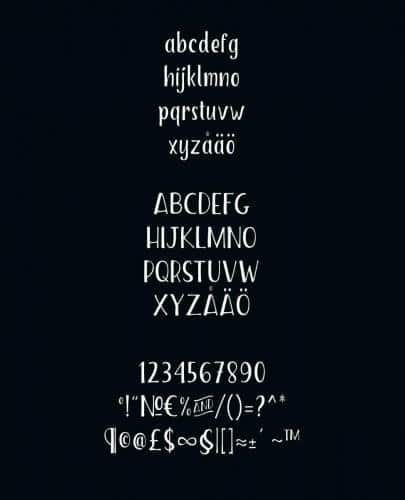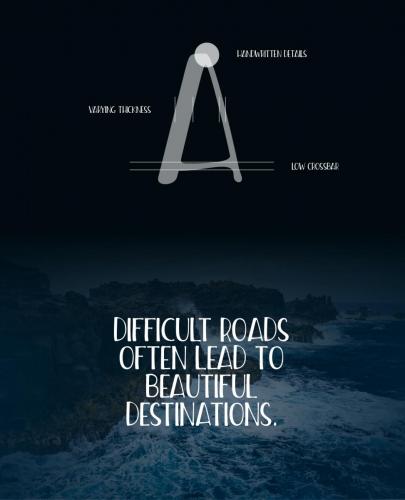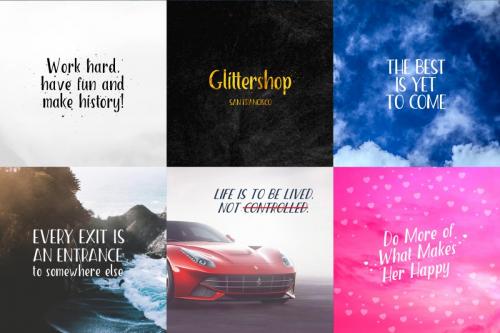
Canvas Script Heavy Font Free Download
Take a look at this stunning font freebie by AF Studio. Canvas Script Heavy Font is perfect condensed hand written font for any project that needs to punch with a great display!
This font is the same font as The Salvador Condensed that is a part of the font family The Salvador Font Pack. So it’s a premium goodie